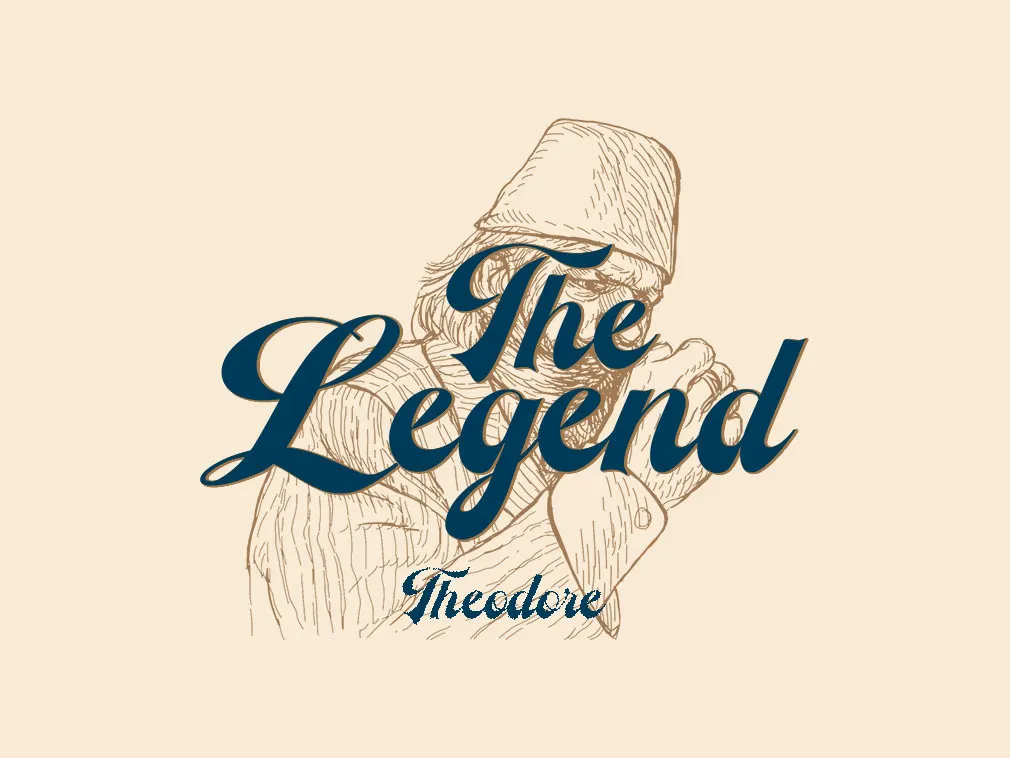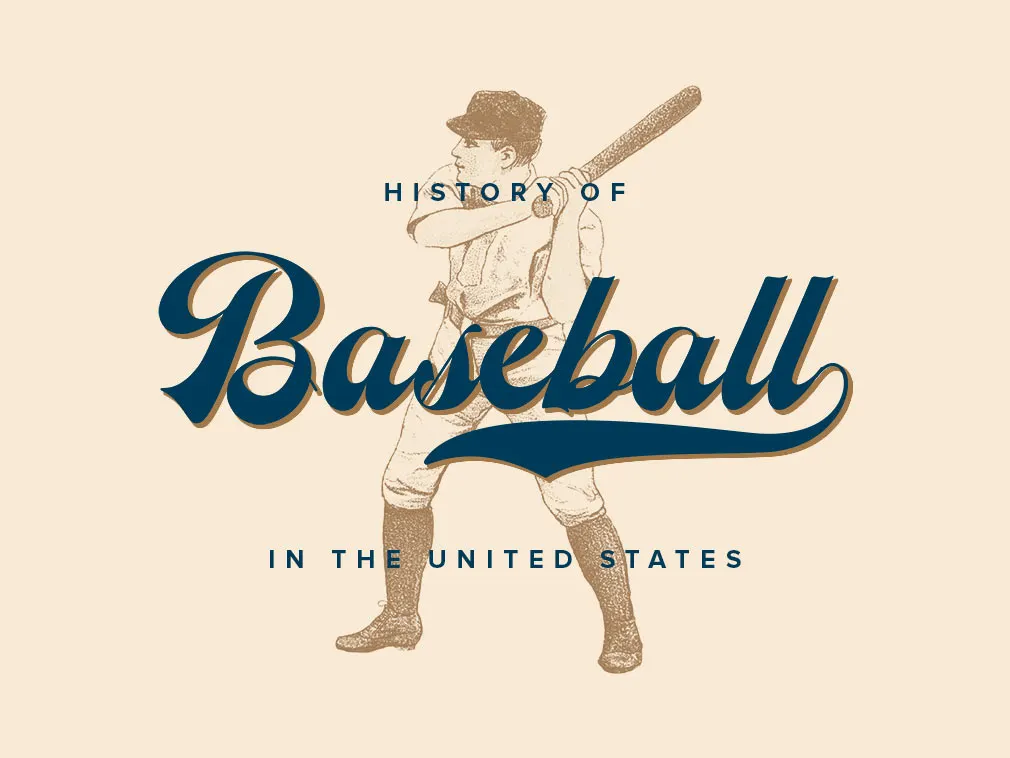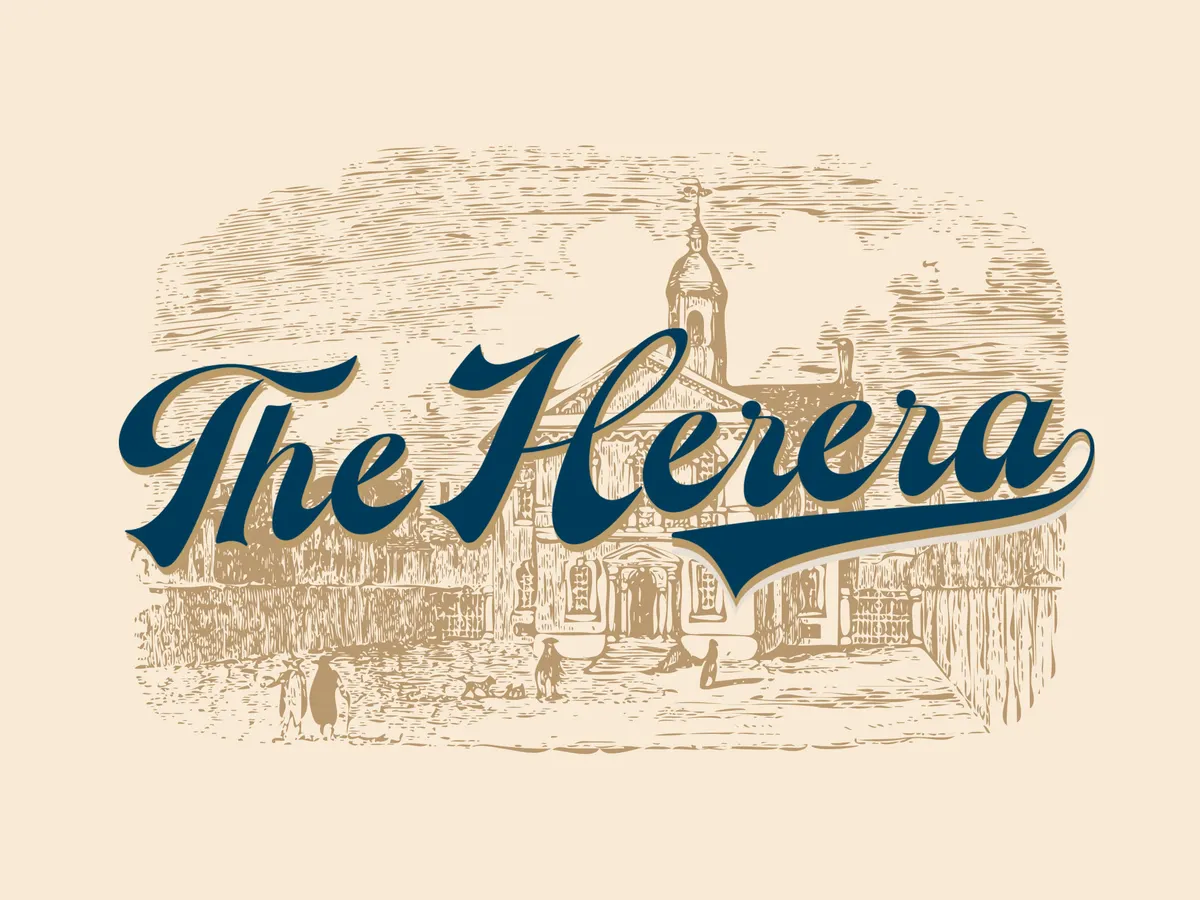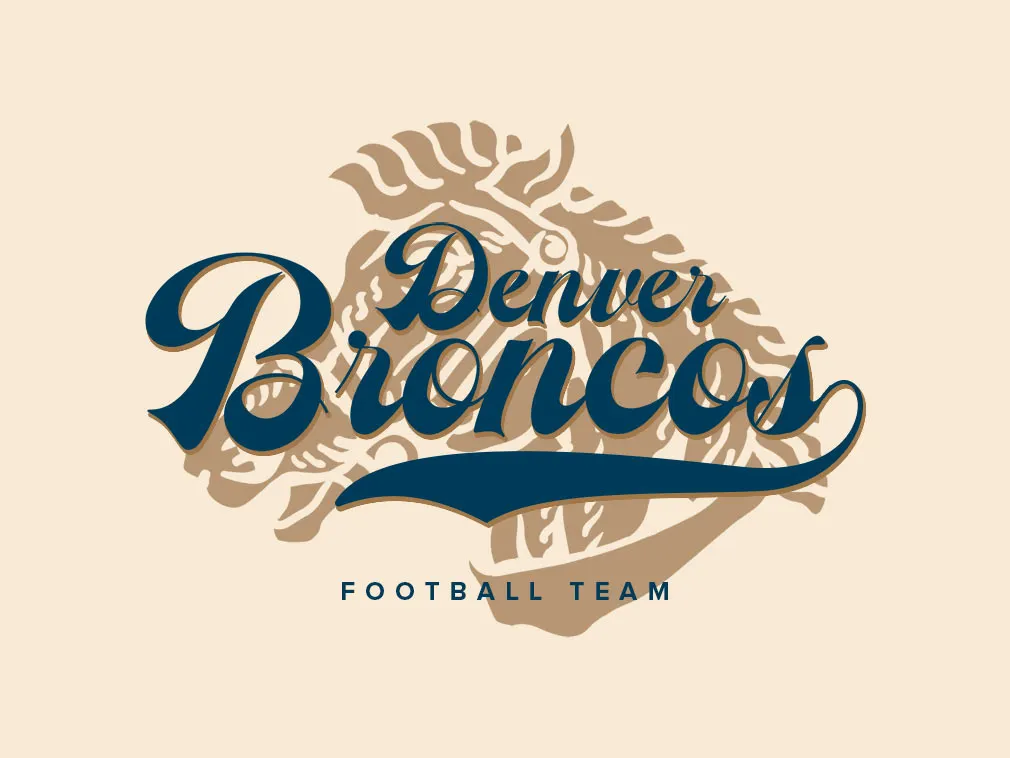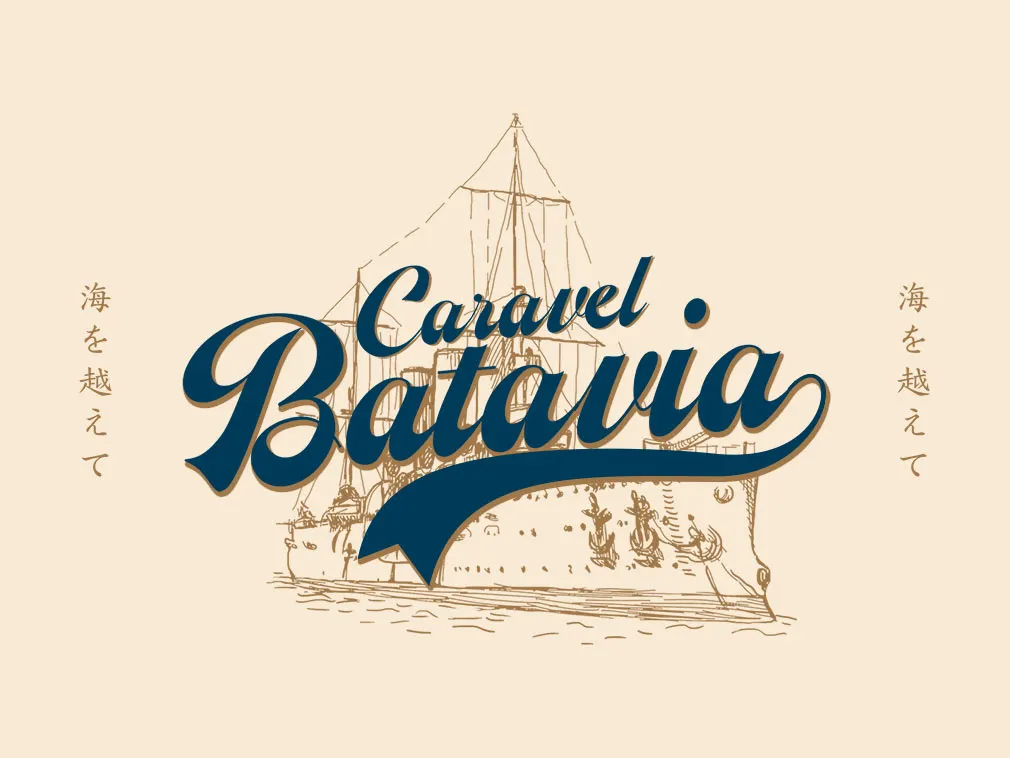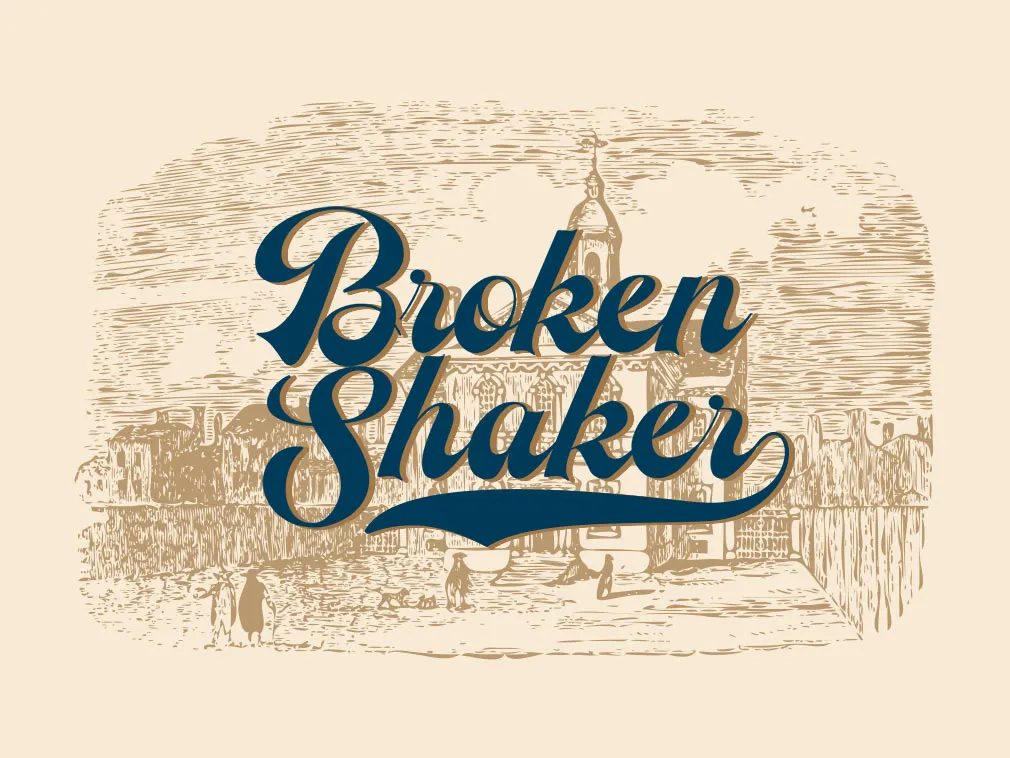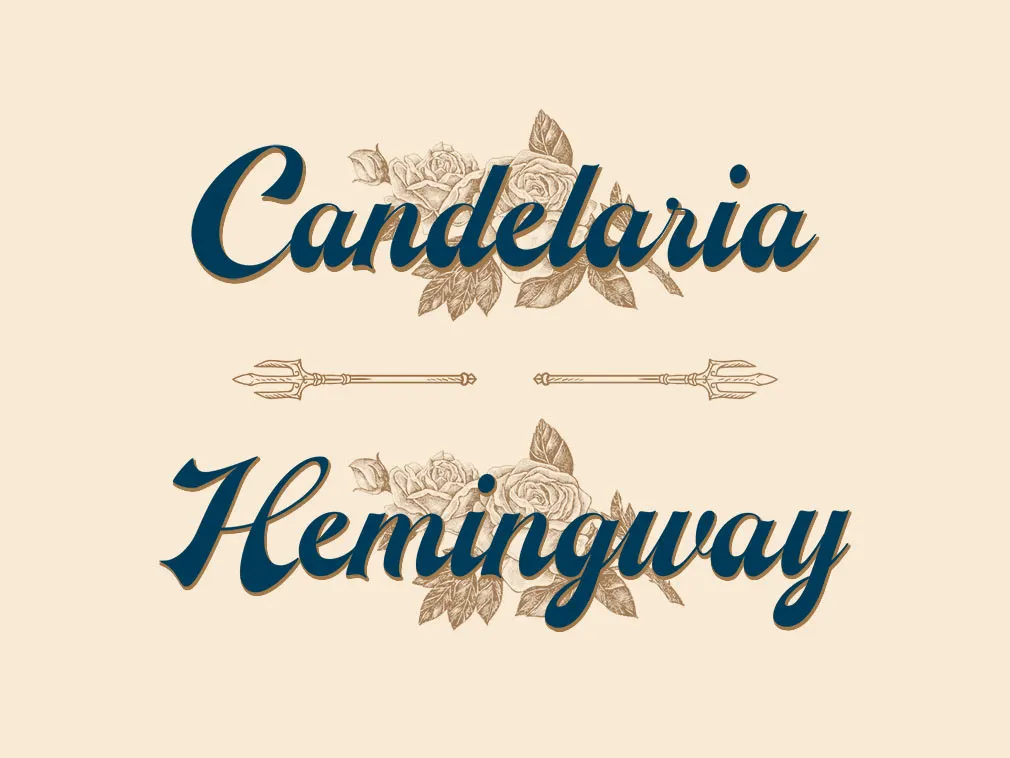
The Herera Script Typeface
Discover the distinctive-looking vintage display script, inspired by the traditional hand-lettering techniques. The canonic typographic elements revive the retro aesthetics to enhance your projects.
The extensive collection of swashes in this script typeface allows setting the right accents and making your writings look even more convincing, bold and outstanding! Use it for your vintage-inspired ideas, posters, headlines, merch concepts, newsletters, packaging and any other type of designs. Classic typography in its contemporary form is what your new project might need to shine even brighter!